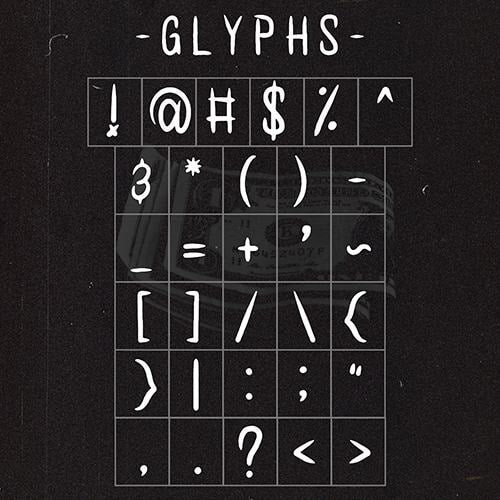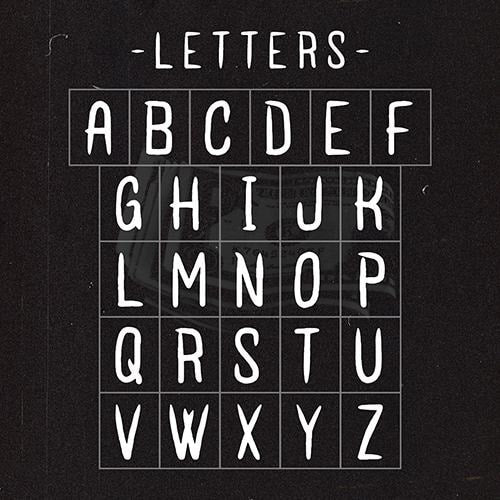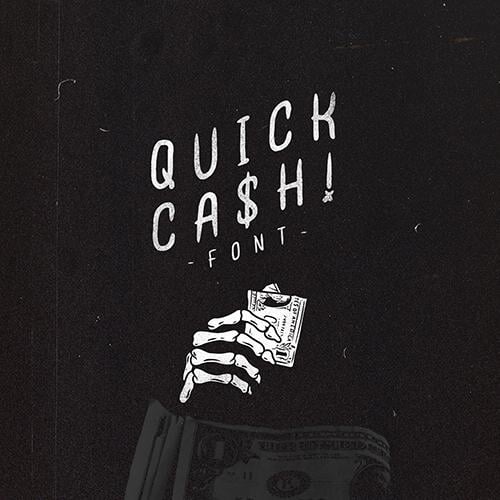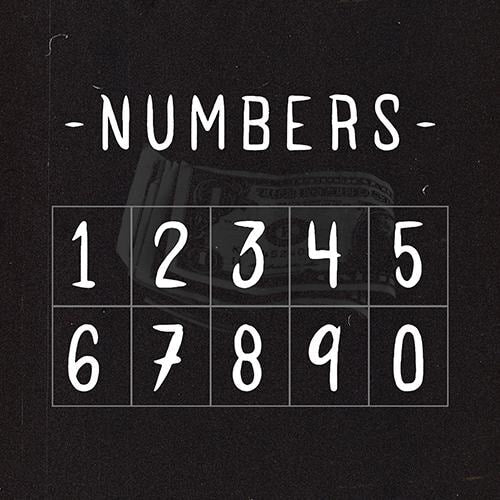
Quick Ca$h! Font (Download Only)
Looking for a font to make your designs look like a million bucks? Look no further. This punchy, all-caps font features crisp lines and sleek edges. It’s great for putting a hand-written touch on signs, business cards, garments, and more. Put the Quick Ca$h! font to work and take your designs to the bank.